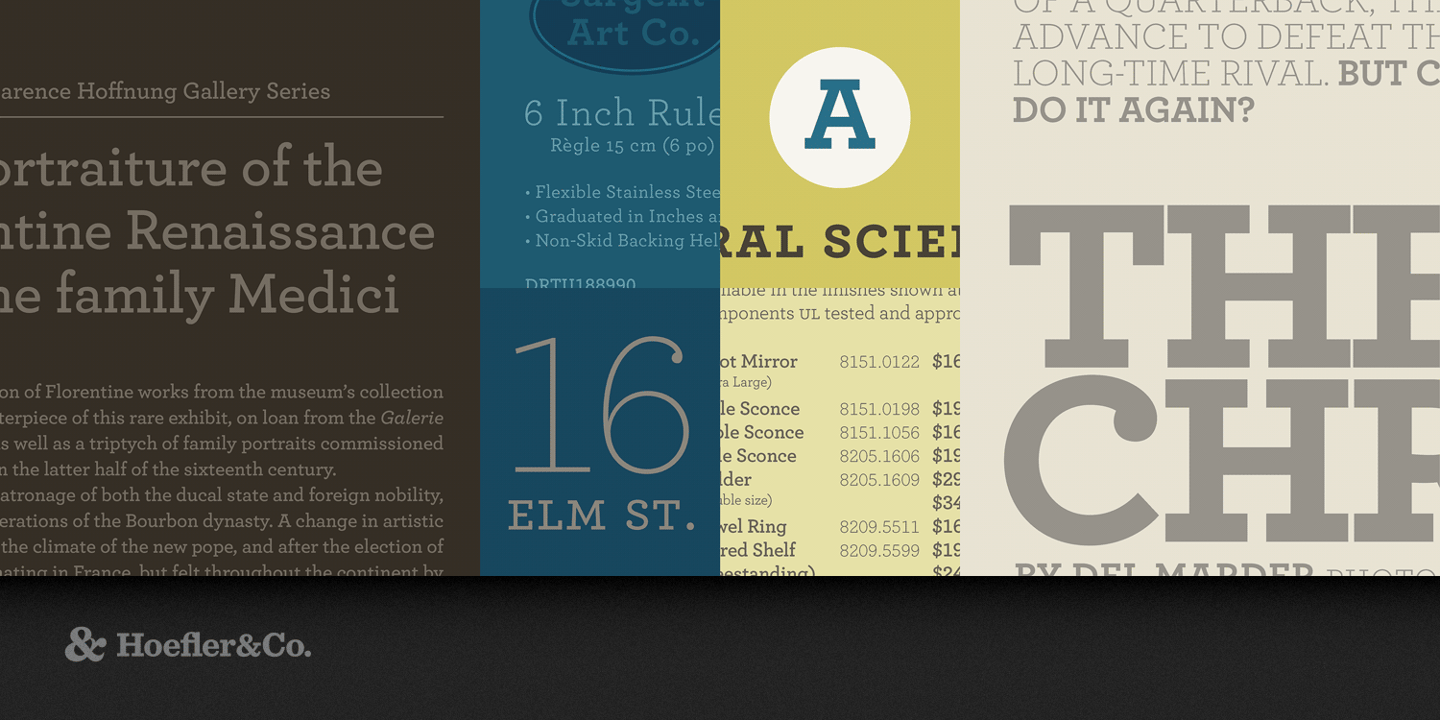
Archer vs Guardian Egyptian
Archer and Guardian Egyptian are both serif typefaces sharing a slab serif foundation. Where Archer leans warm, geometric, Guardian Egyptian brings editorial, readable. Compare which suits your Editorial project.
Archer
Guardian Egyptian
Archer
Guardian Egyptian
| Feature | Archer | Guardian Egyptian |
Recommended: Archer
- warm, geometric design character
- Suited for Branding and Lifestyle
Consider: Guardian Egyptian
- editorial, readable design character
- Suited for News and Magazines